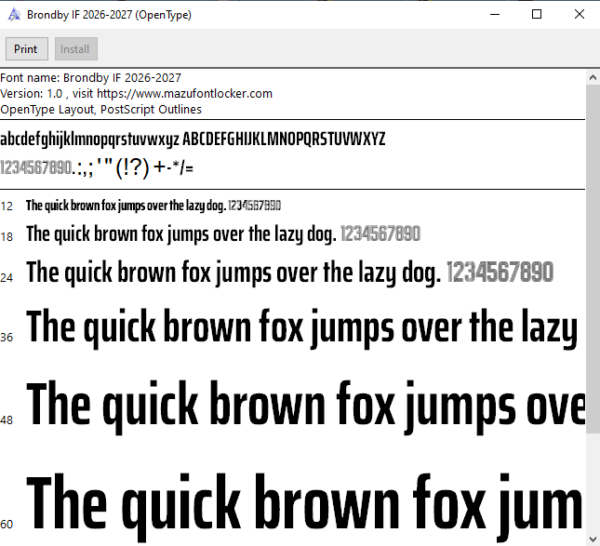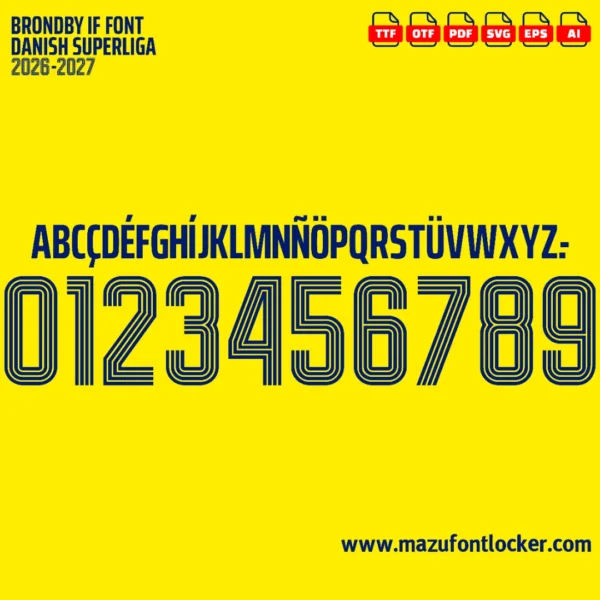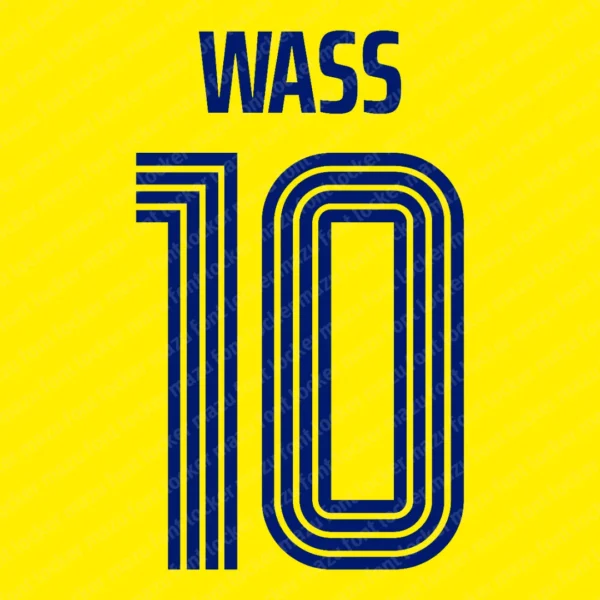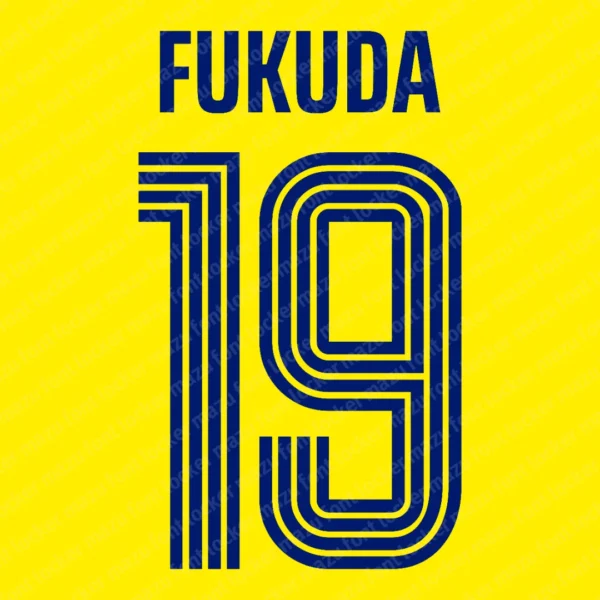
Brondby IF 2026-2027 Font Vector – Stunning Blue-Yellow Legacy Masterpiece
This font captures the powerful, iconic, determined, and precision-crafted lettering that perfectly reflects Brondby IF’s rich legacy, winning mentality, and unwavering Blue and Yellow spirit, delivering unmatched authenticity, premium quality, Scandinavian football excellence, and official Danish Superliga style for professional jersey mockups, football graphics, sports branding, passionate fan creations, and high-end design projects.
Brondby IF 2026-2027 Font Vector – Stunning Blue & Yellow Legacy Typeface
The Brondby IF 2026-2027 Font Vector is a premium typeface that accurately recreates the official match lettering worn by Brondby IF during the 2026-2027 season. This high-quality vector font kit captures the bold, modern, and instantly recognizable typography that perfectly complements the club’s iconic blue and yellow identity.
Designed for professional designers, football enthusiasts, and passionate Brondby supporters, the Brondby IF 2026-2027 Font Vector delivers exceptional authenticity for creating realistic jersey mockups, football merchandise, social media graphics, match posters, and custom fan artwork. Every character has been carefully recreated to match the official shirt lettering worn throughout the 2026-2027 campaign.
This font stands out thanks to its precise vector construction and authentic club styling. Every character has been meticulously recreated to match the official shirt lettering used during the 2026-2027 season. Whether you’re producing realistic kit templates or creating eye-catching football content, the Brondby IF 2026-2027 Font Vector delivers a genuine professional appearance.
The lettering featured in the Brondby IF 2026-2027 Font Vector combines clean geometric lines with bold contemporary proportions. The result is a premium and highly legible typeface that reflects Brondby IF’s proud football tradition, competitive spirit, and modern Scandinavian identity.
The numerals feature balanced curves, sharp edges, and consistent spacing for excellent readability on jerseys and digital media. Built entirely as scalable vectors, every number remains crisp for jersey customization, posters, print production, digital artwork, and large-format graphics.
• Complete uppercase A–Z alphabet and numbers 0–9 in authentic Brondby IF 2026-2027 style
• Includes authentic 3F Superliga badge glyph placement beneath player numbers